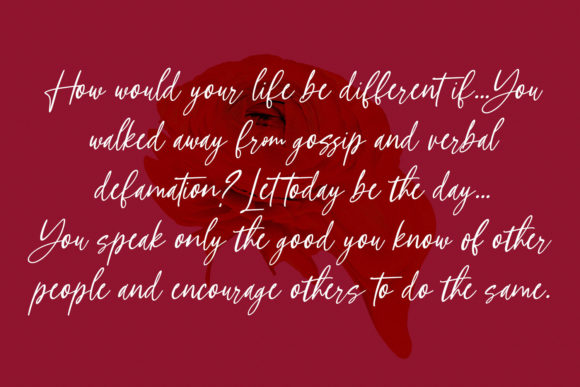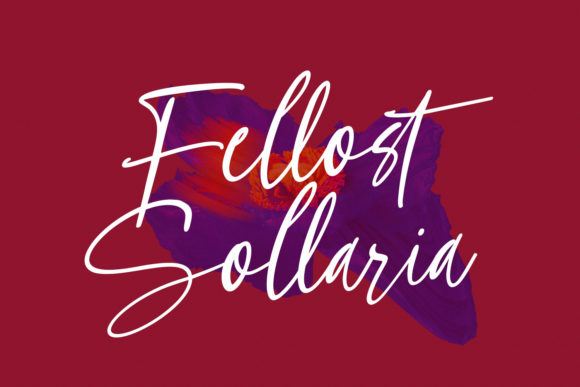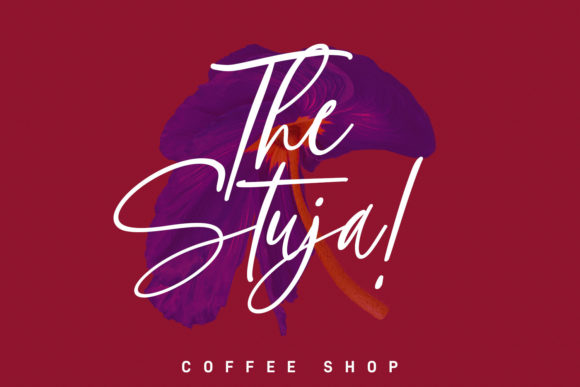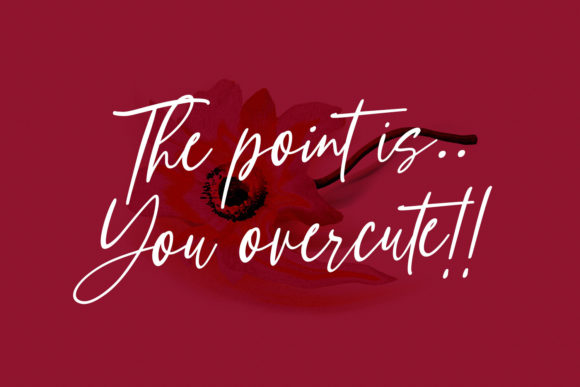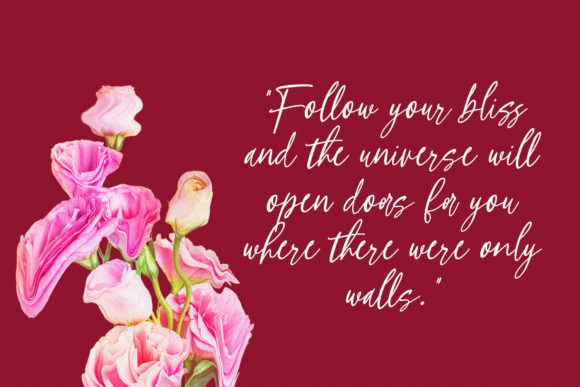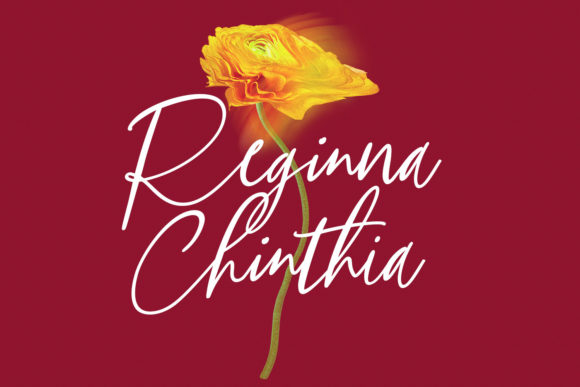
Introduction to Maffelyns Font
As a designer, have you ever found yourself stuck in a creative rut, searching for that perfect font to bring your project to life? You’ve scrolled through countless options, but nothing seems quite right. Well, we’re excited to introduce you to a game-changing design resource that’s about to become your new go-to: the Maffelyns Font.
This stunning script font is more than just a pretty face – it’s a high-quality, free download that’s waiting to elevate your creative project. With its simple yet elegant design, Maffelyns Font is the perfect choice for any craft design, from wedding invitations to handmade greeting cards.
Whether you’re a seasoned pro or just starting out, the Maffelyns Font is an invaluable asset to have in your design toolkit. Its transparent background and versatile style make it easy to mix and match with other design elements, giving you endless possibilities for creative expression.
Key Features of Maffelyns Font
- Unique, hand-drawn style with a transparent background, perfect for adding a personal touch to designs.
- Designed to be highly legible and versatile, making it suitable for a variety of creative projects, from logos to typography-based designs.
- Supports multiple languages, allowing designers to create content in various languages with ease.
Honest Review: Maffelyns Font
I recently came across Maffelyns Font, and I’m excited to share my thoughts with you. As a designer, I’m always on the lookout for high-quality fonts that can elevate my creative projects.
Maffelyns Font is indeed a design resource that delivers. The font is crisp and clean, with a beautiful, elegant aesthetic that works well in a variety of applications.
- ✨ High-quality design: Maffelyns Font is a well-crafted font with a unique, sophisticated look.
While Maffelyns Font is a great resource, there are a few limitations to consider:
- ⚠️ Limited character set: The font may not include a comprehensive character set, which could be a problem for designers who need to work with non-English languages.
- ⚠️ Not suitable for all design styles: While Maffelyns Font is elegant and sophisticated, it may not be the best choice for designers who work with more playful or informal design styles.
Overall, I’m impressed with Maffelyns Font. It’s a high-quality design resource that can add a touch of elegance to any creative project. While it may have some limitations, it’s definitely worth considering for designers who need a beautiful, free font.
Experiment with different font sizes and styles to add visual interest to your design. Use Maffelyns Font in combination with other design elements, such as images or graphics, to create a cohesive and engaging design.
Maffelyns Font is ideal for a variety of creative projects, including logos, brochures, business cards, and social media graphics. Its high-quality design and transparent background make it perfect for overlaying text on images or backgrounds.